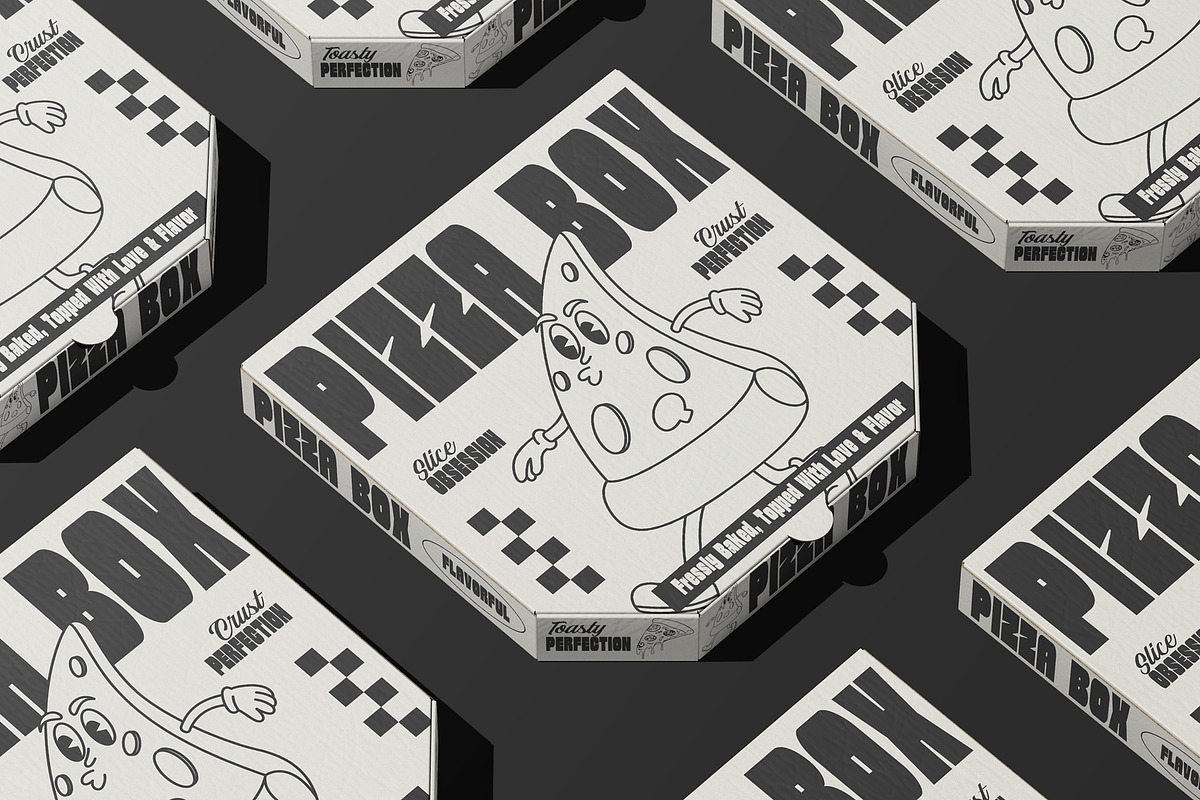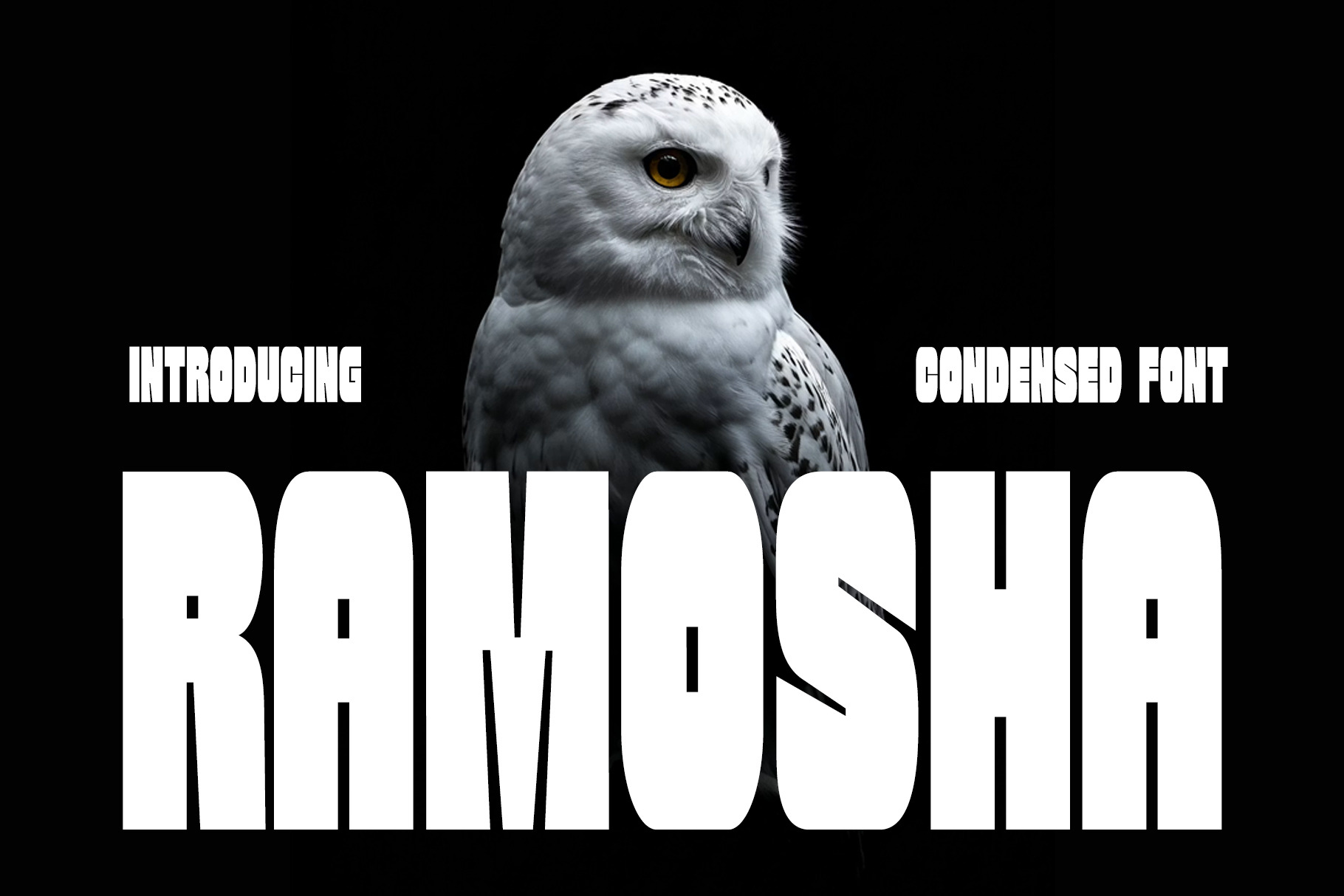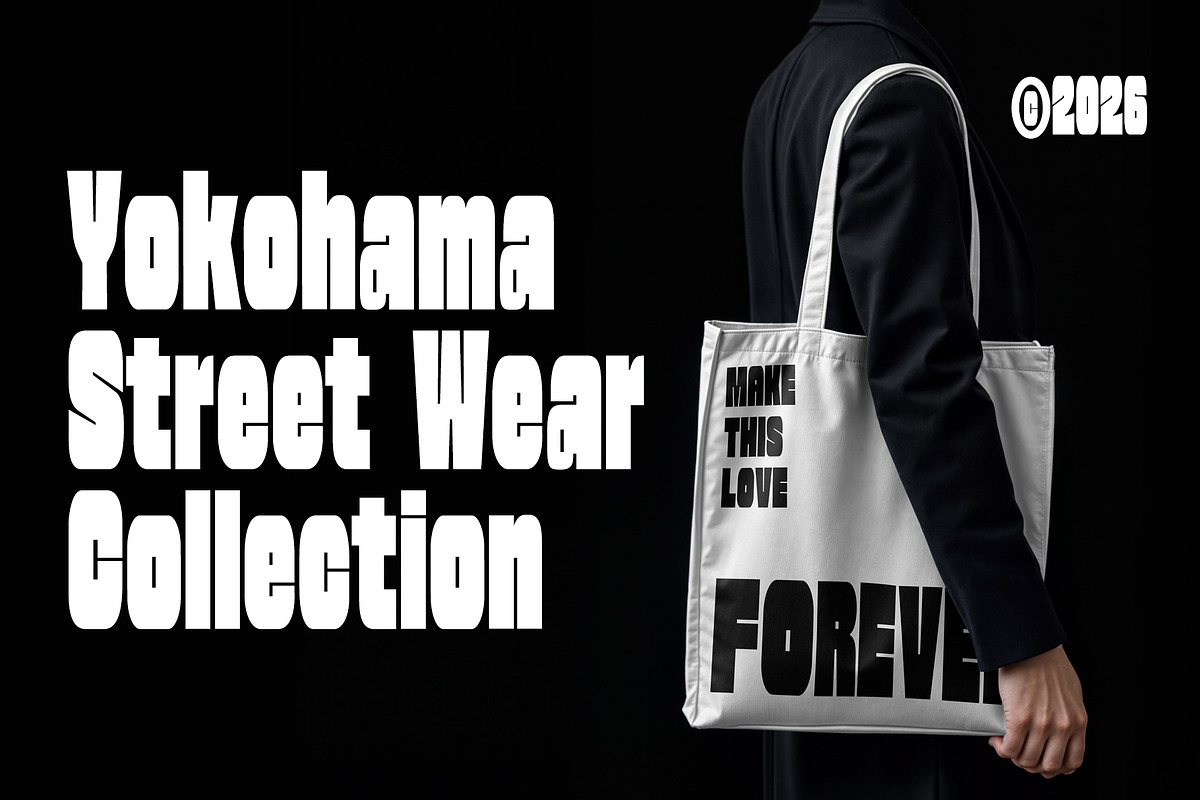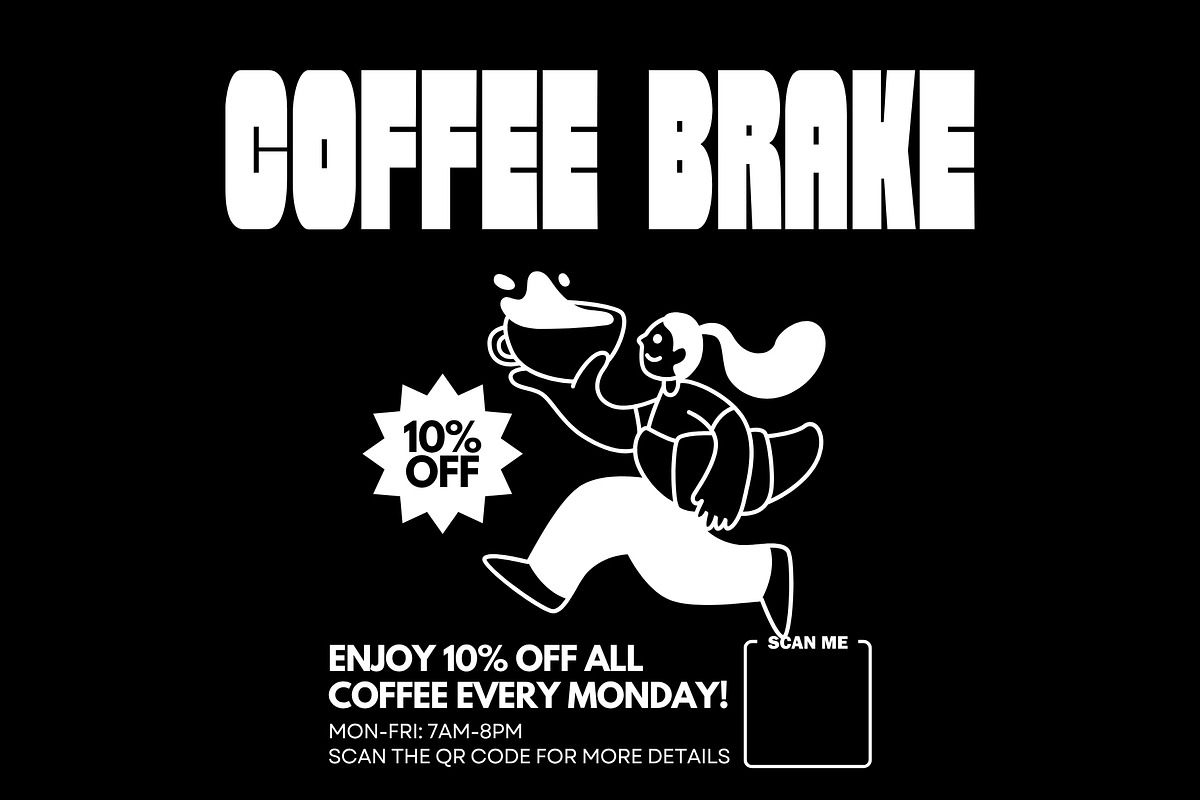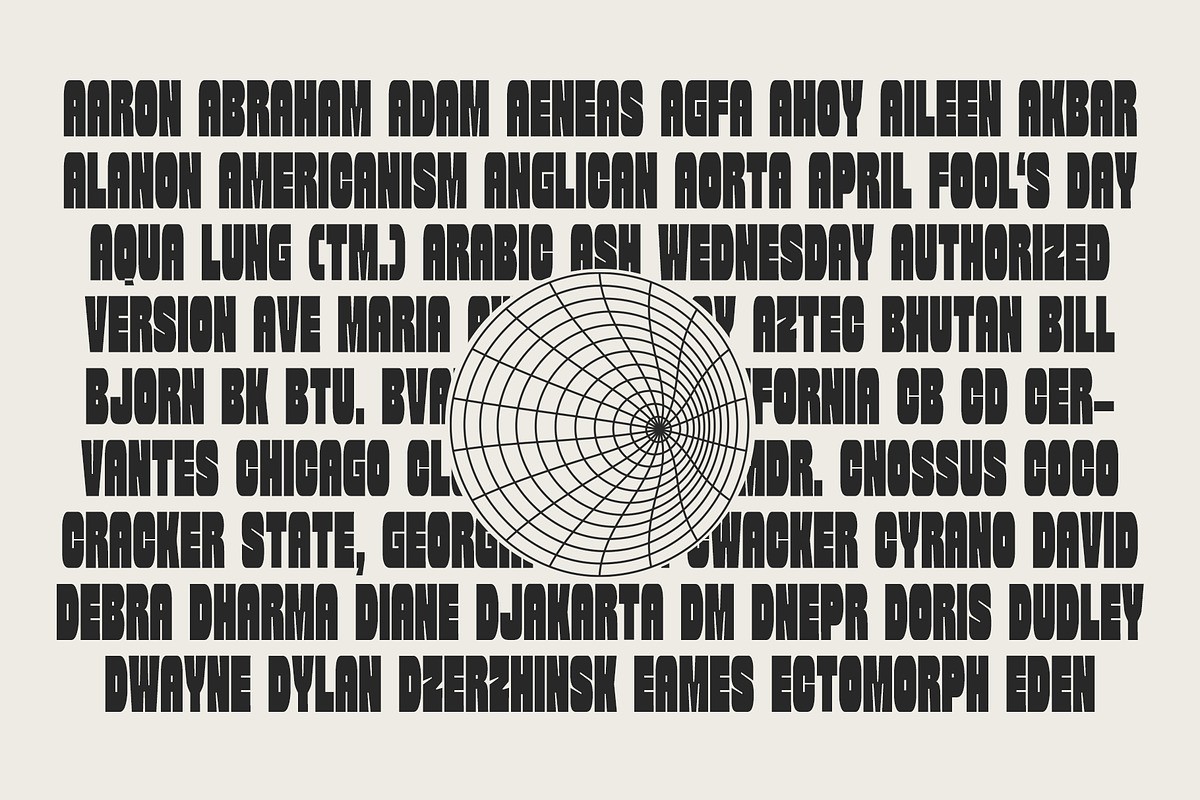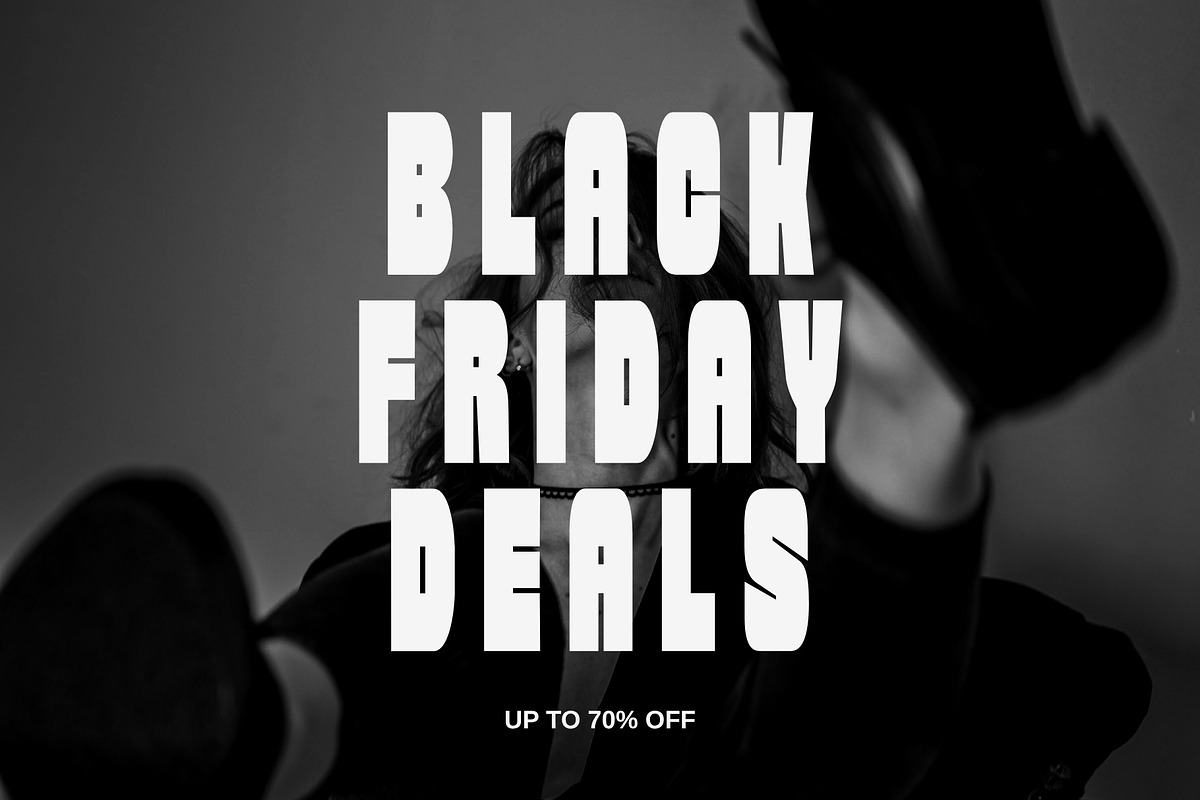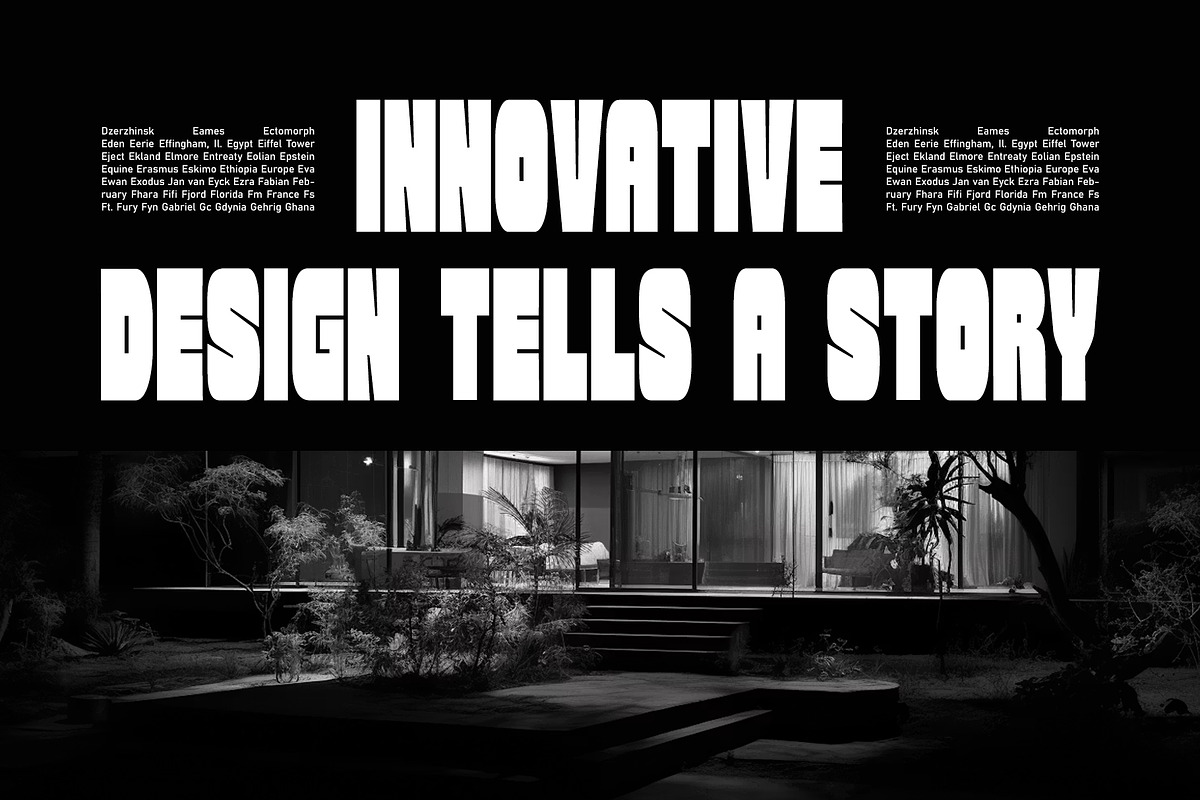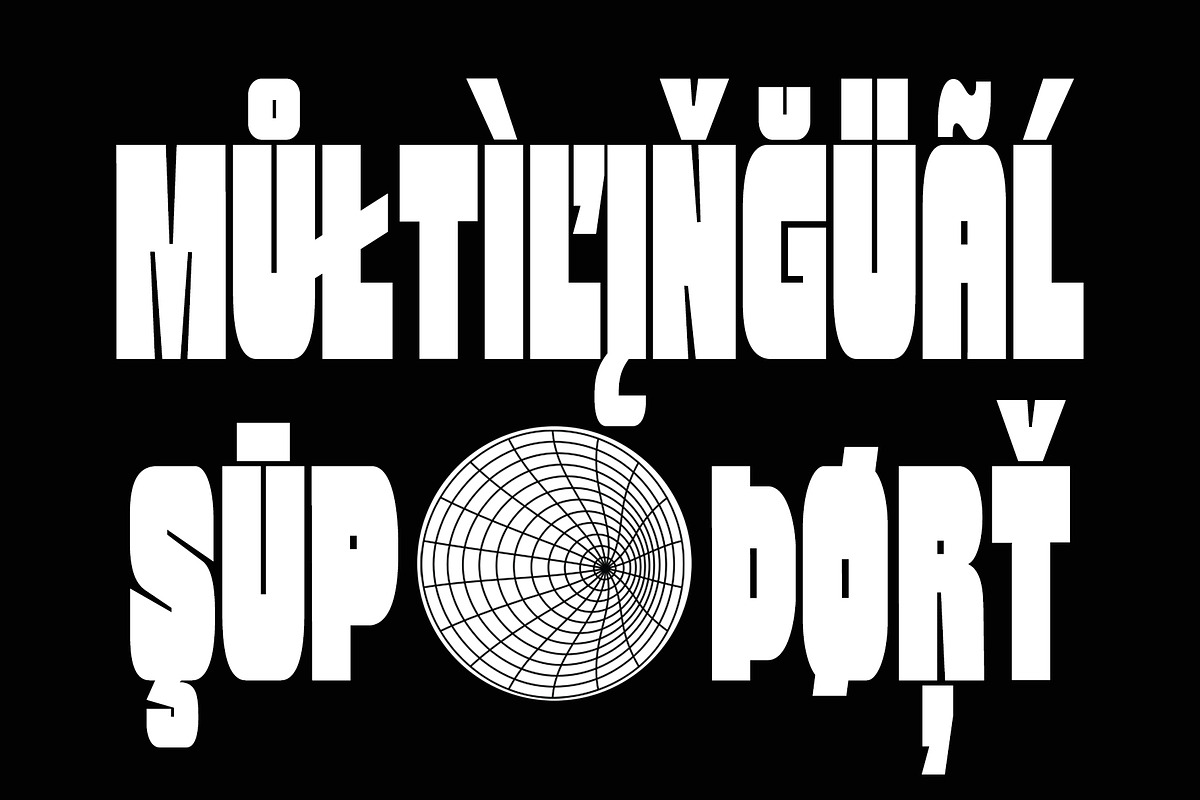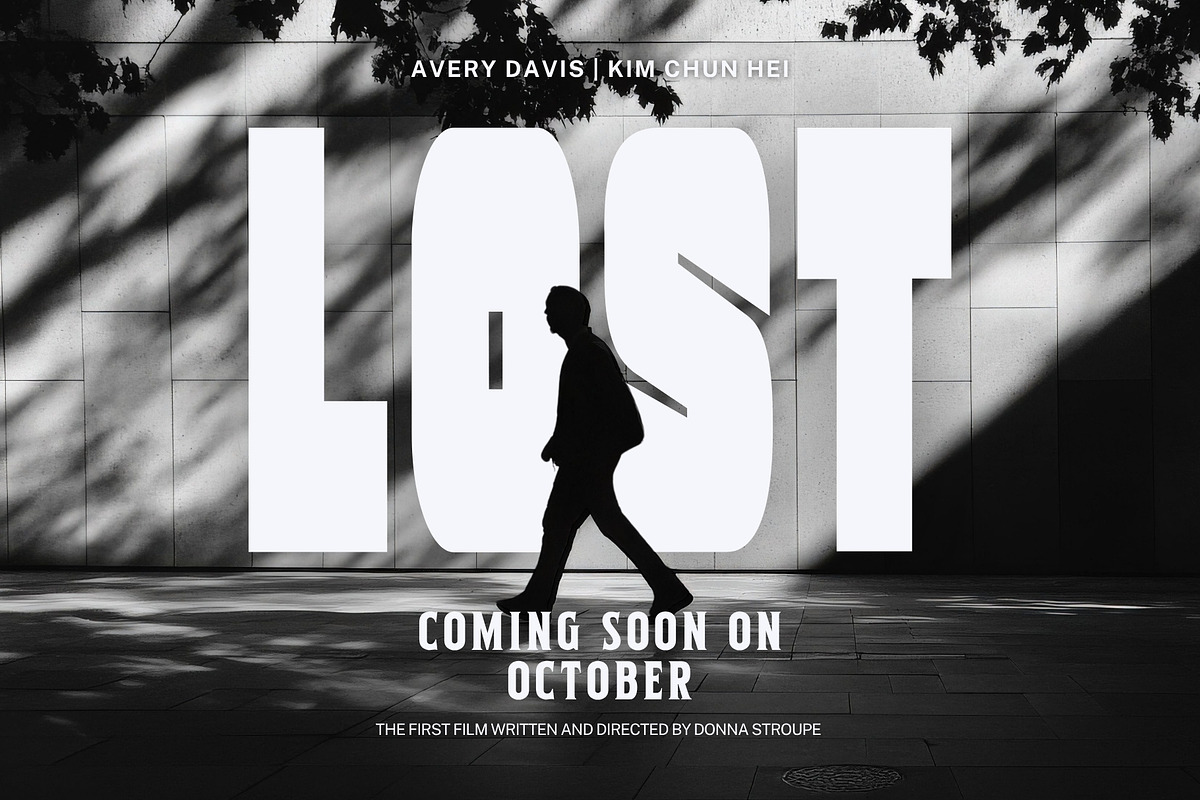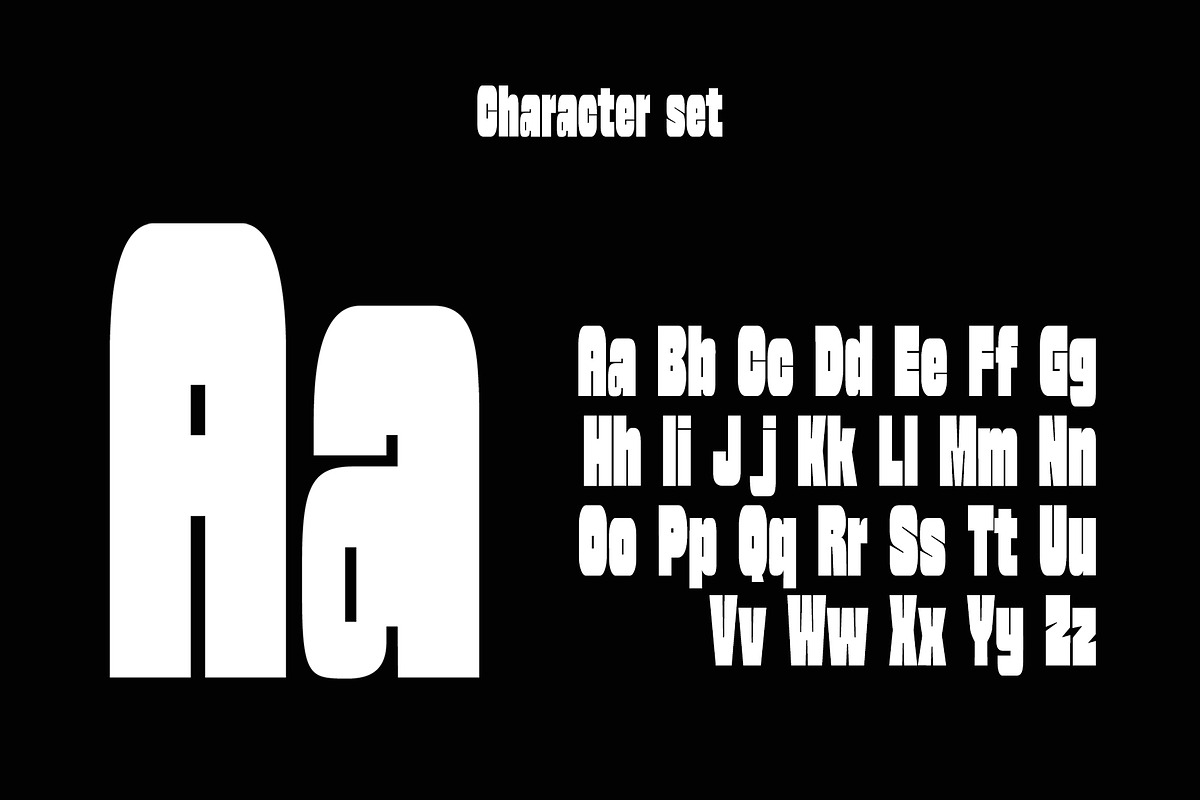
Ramosha Bold Condensed Font
Ramosha is a powerful bold condensed display font designed to create strong visual impact in modern branding and editorial design. With its tall proportions, heavy strokes, and clean geometric structure, Ramosha delivers a confident and commanding appearance perfect for posters, headlines, logos, sports branding, fashion campaigns, packaging, and cinematic typography.
Inspired by modern condensed type aesthetics, Ramosha combines bold letterforms with excellent readability, making it ideal for both digital and print projects. The narrow spacing allows designers to maximize headline space while maintaining a striking and professional look. Its modern sans serif construction gives every design a sleek, aggressive, and contemporary personality.
Whether you are creating album covers, movie titles, streetwear branding, social media graphics, advertising campaigns, or bold editorial layouts, Ramosha helps your typography stand out instantly. The font is crafted to deliver high-impact visuals while keeping a clean and versatile style suitable for creative industries.